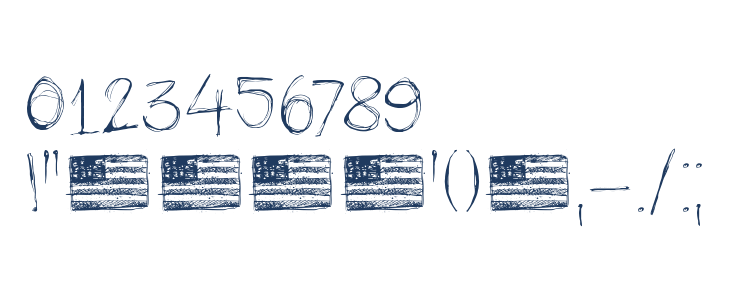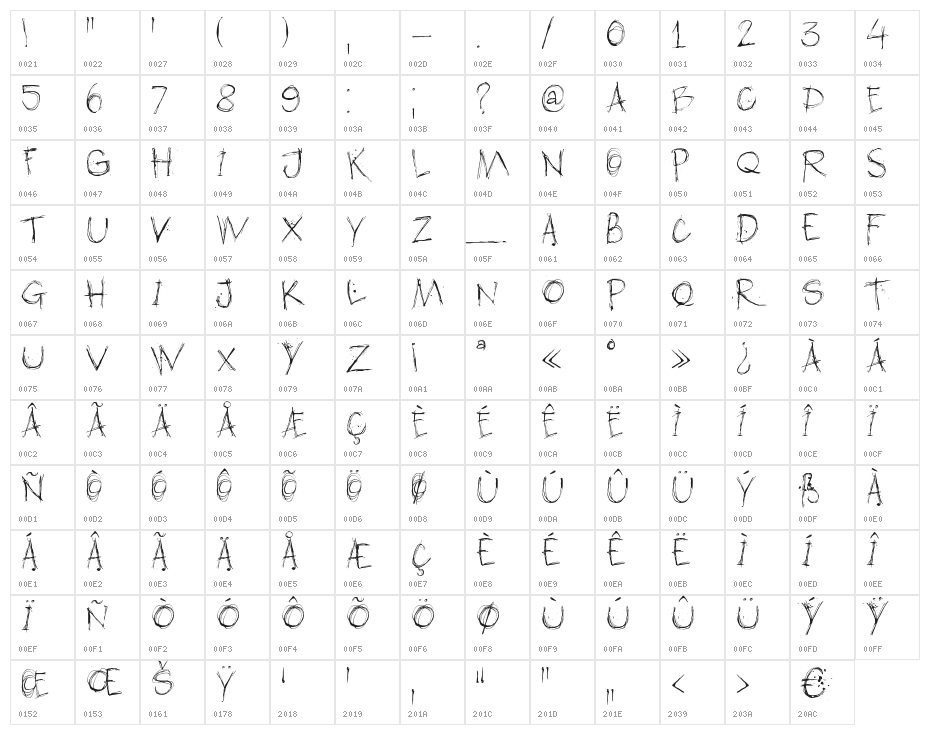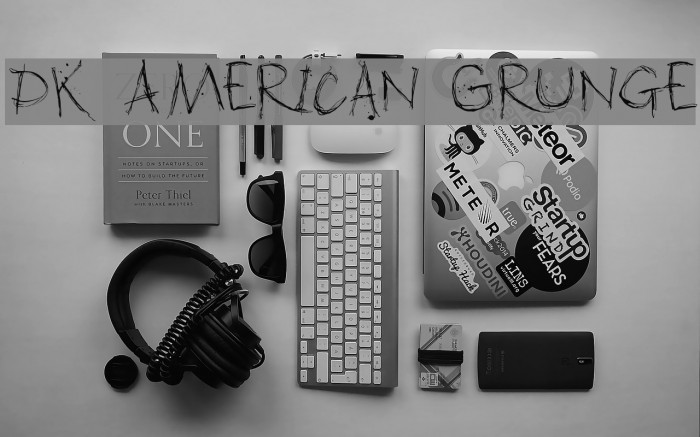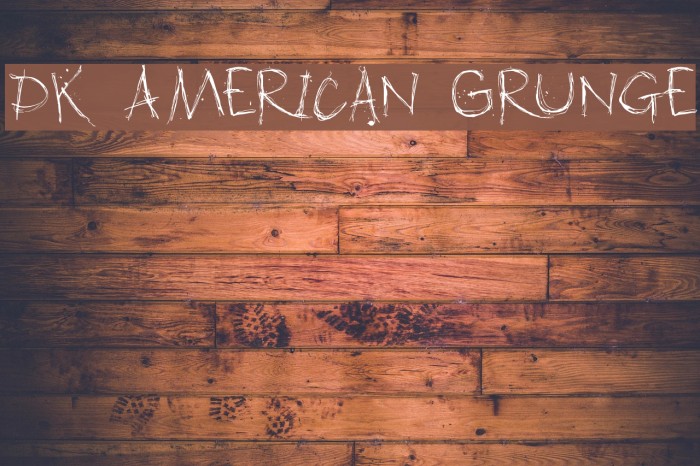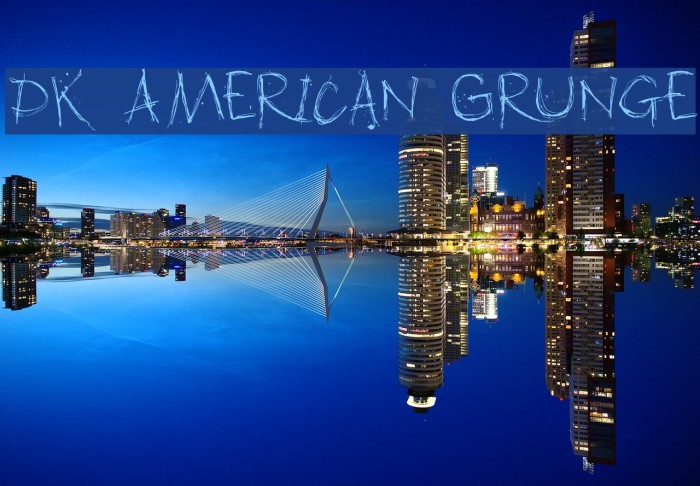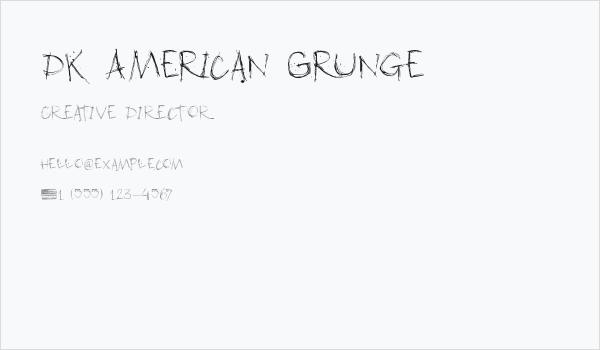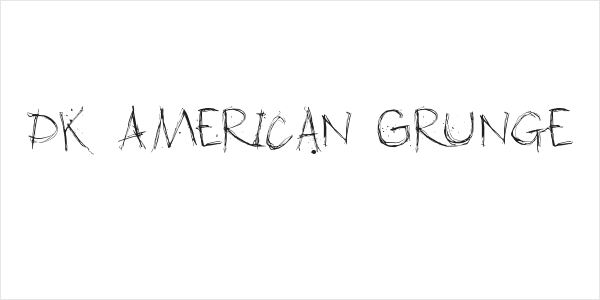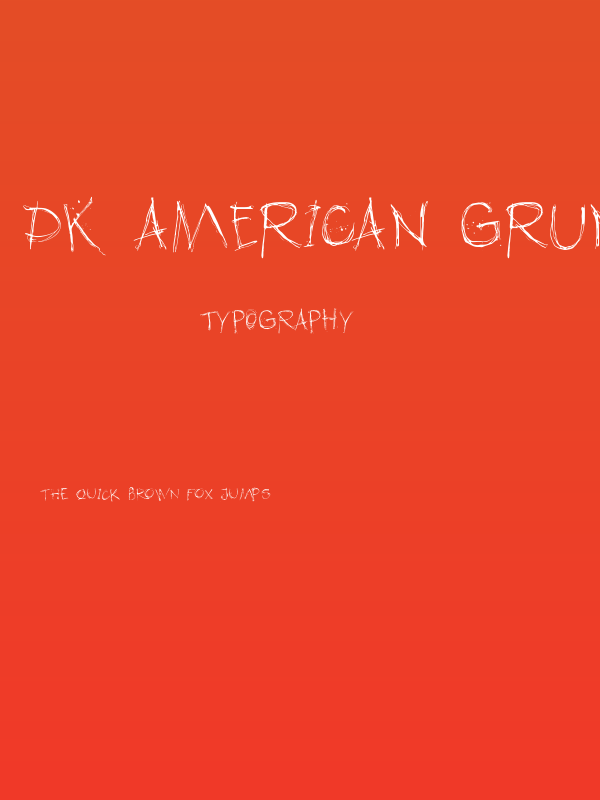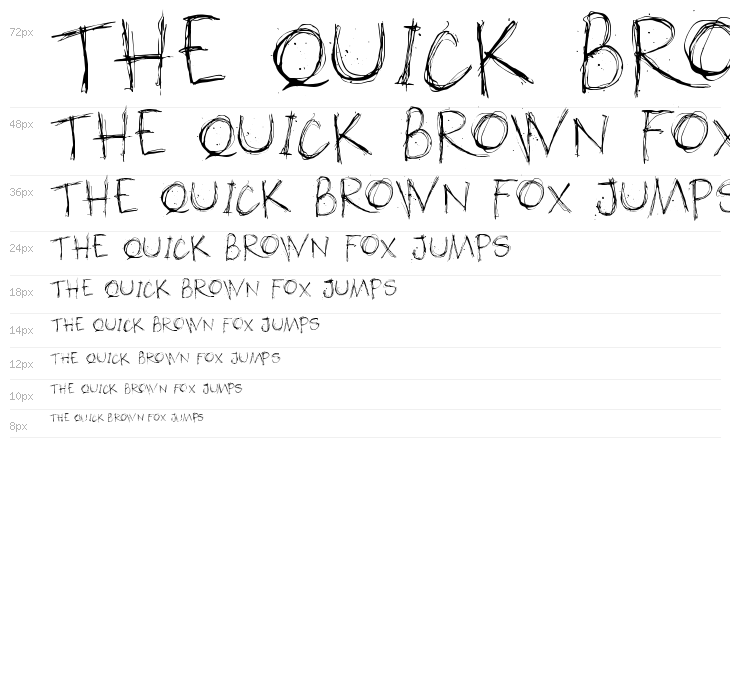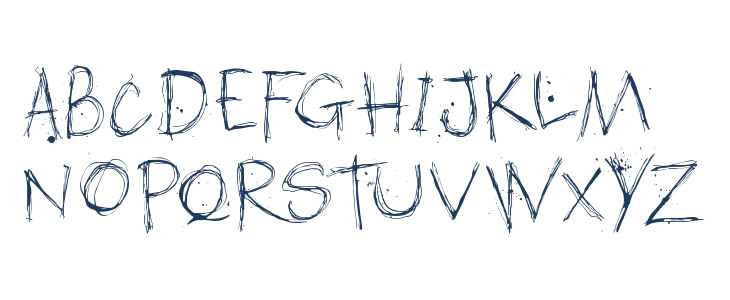
DK American Grunge Font
DK American Grunge Description
This font exudes a raw, edgy aesthetic with its distressed and grungy appearance. Each character is uniquely crafted with irregular strokes and splatters, giving it a hand-drawn feel that is both chaotic and artistic. The uppercase and lowercase letters maintain a consistent style, characterized by sharp angles and uneven lines that convey a sense of rebellion and nonconformity. Numbers and special characters follow the same rugged design, making the font versatile for various creative applications. Its distinctive style is perfect for projects that require a bold statement or an alternative, underground vibe.
| Overall Style | Grunge, Artistic |
| Proposed Projects | Ideal for album covers, posters, streetwear branding, and edgy graphic designs. |